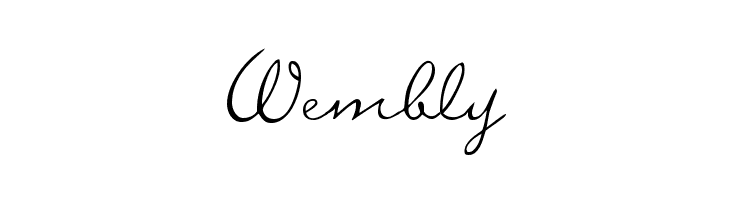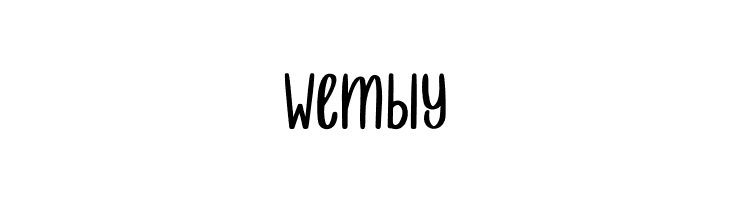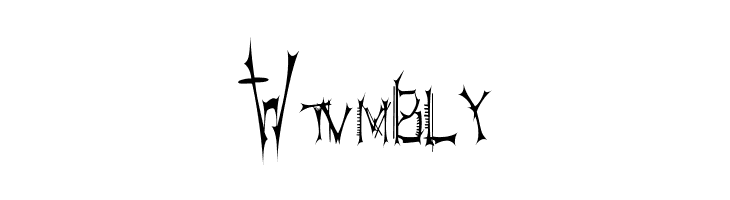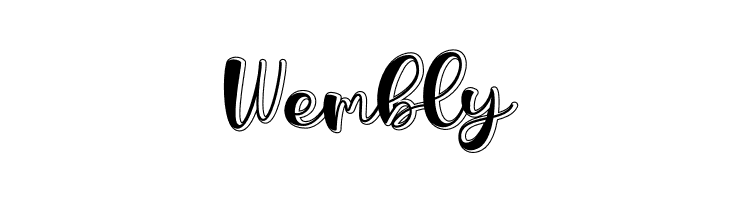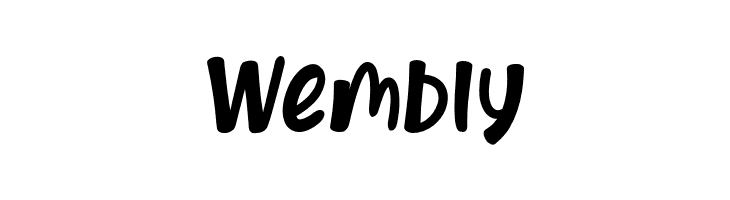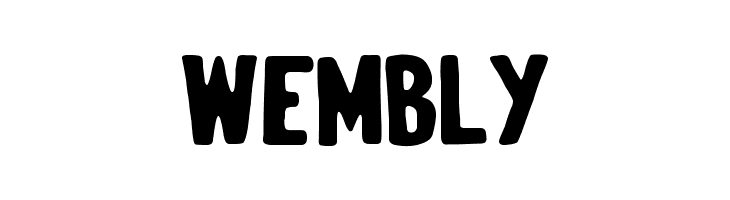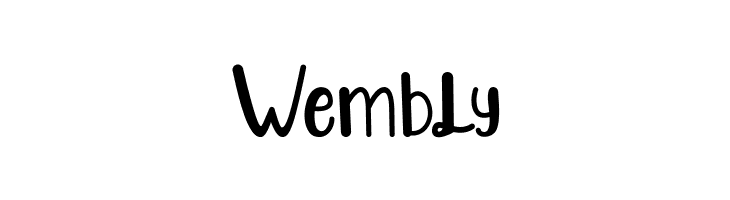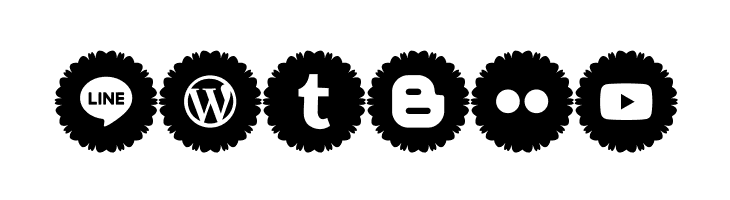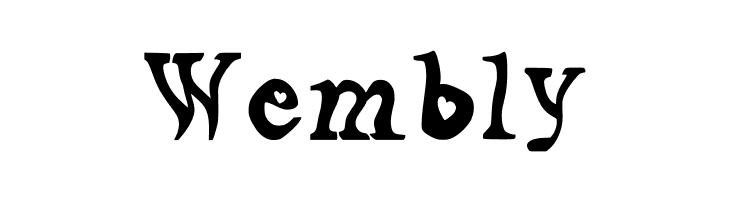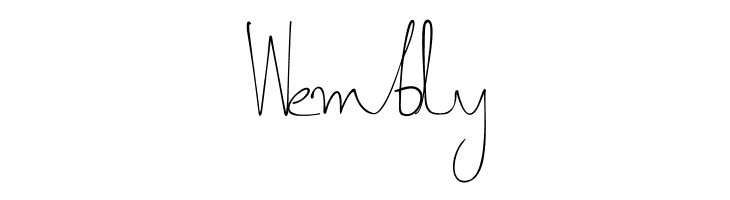
An elegant, flowing script font with ornate loops and flourishes.
A playful, whimsical font with rounded, slightly irregular letterforms.
A bold, edgy font with sharp, thorn-like details and a gothic, tribal aesthetic.
A bold, flowing script font with high contrast and decorative swashes.
A dynamic and fluid script font with a modern, handwritten style.
A bold, playful handwritten font with a casual and friendly style.
A bold, playful font with rounded letterforms and a cohesive design.
A playful handwritten font with a casual and friendly style.
Bold, circular sawtooth badges containing simplified brand and social media icons.
A whimsical, hand-drawn font with playful, irregular shapes and decorative elements.
A whimsical, handwritten font with elongated, flowing characters.
A playful, bold font with a whimsical, cartoon-like style.
A playful, bold font with irregular, whimsical characters.
A bold, decorative font with vintage, ornate detailing and strong visual impact.
A playful, bold font with rounded edges and a hand-drawn appearance.
A bold, cursive script font with elegant, flowing lines.
A bold, brush-style font with dynamic, textured strokes.
A bold, high-contrast serif font with dramatic strokes and elegant serifs.
A playful, bold handwritten font with dynamic strokes.
A bold, expressive script font with fluid, cursive strokes.
A bold, textured script font with a vintage, handcrafted feel.
A bold, cursive font with a rough, hand-drawn texture.
A bold, rough script font with dynamic, flowing strokes and a handwritten appearance.
A bold, vintage script font with textured strokes and elegant loops.
A bold, high-contrast serif font with sharp serifs and a modern twist.
A playful, modern handwritten font with flowing strokes and a whimsical touch.
A bold, hand-drawn font with a lively and energetic style.
A bold, high-contrast serif font with sharp serifs and dramatic style.
A bold serif font with dramatic contrast and elegant style.
A modern, rounded sans-serif font with clean lines and excellent readability.
A playful, bold handwritten font with smooth, rounded strokes.
A modern, elegant font with tall, slender characters and high contrast strokes.
A sophisticated and elegant font with modern, slender strokes and subtle contrast.